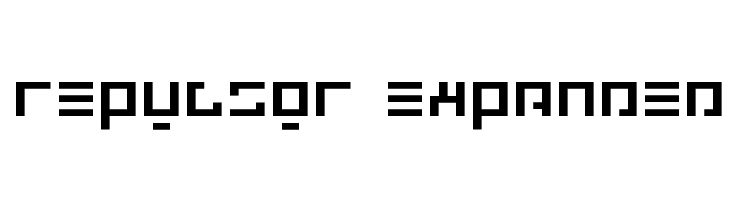
A bold, geometric font with a futuristic, tech-inspired design.
( Fonts by Intellecta Design )
A bold, italic font with sharp angles and a modern, dynamic style.
A bold, handwritten font with a playful and dynamic style.
( Fonts by Manuel Viergutz - Typo Graphic Design - www.typographicdesign.de )
A pixelated, maze-like font with a geometric and modern style.
A decorative font with intricate, abstract animal designs inspired by tribal art.
( Fonts by Baka - Kyakirun - bakafonts.kyakirun.com )
A bold, angular font with a dynamic, jagged design.
A bold, geometric font with a modern, playful aesthetic.
( GustSika - Gust Sika - www.behance.net/gustsika )
A modern, geometric font with clean lines and consistent stroke width.